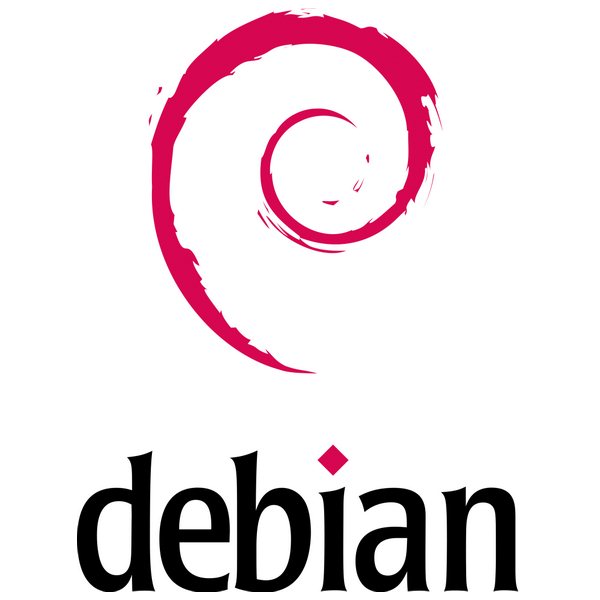
Debian Font
Fonts in UseDebian is a popular, community-driven Linux distribution known for its stability, versatility, and commitment to free and open-source software.
The Debian logo features the famous Debian swirl and a logotype based on Laudatio Condensed font, with a red diamond replacing the dot on 'i'. Details on Laudatio Condensed font can be found here.